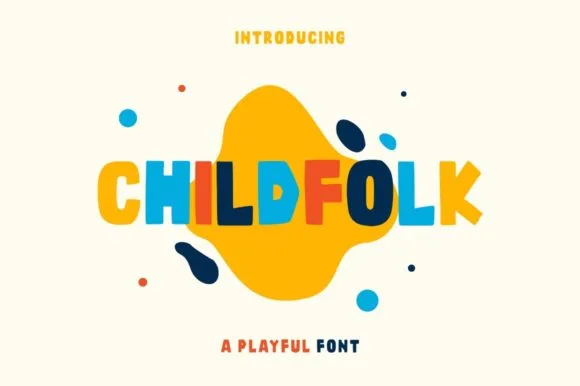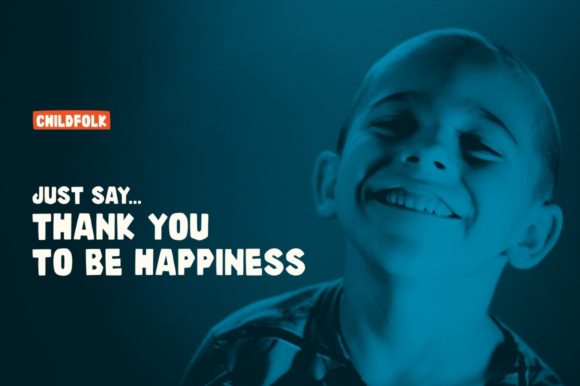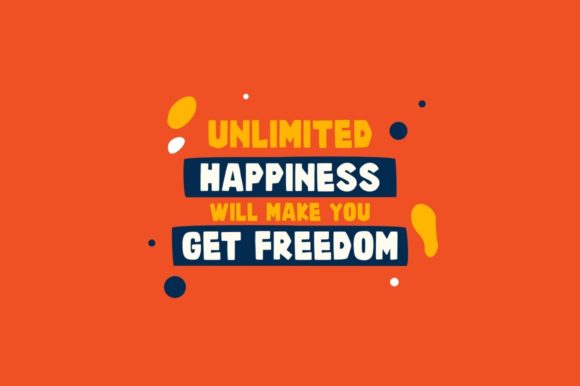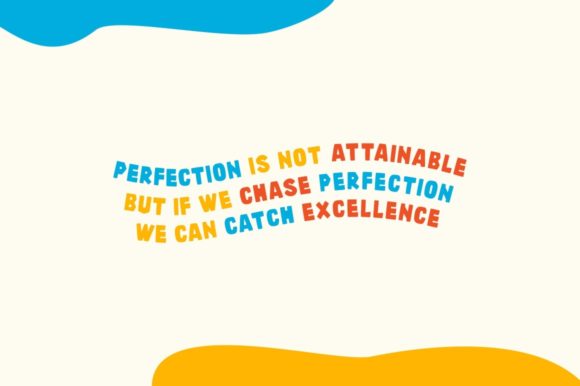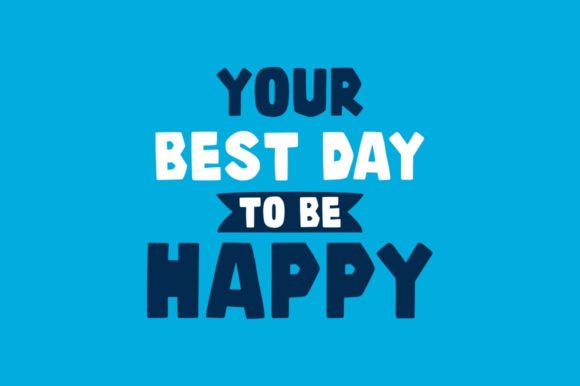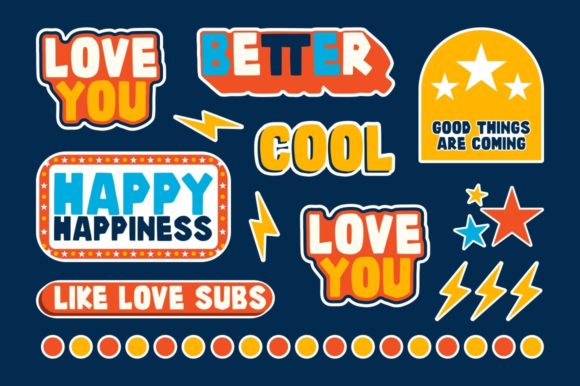
Childfolk Font
About Childfolk Font
Introducing “Childfolk,” a delightful and charming full-color font that brings a playful and childlike vibe to your designs. With its whimsical and vibrant lettering, this font is perfect for adding a touch of joy and creativity to any kids and school projects.
“Childfolk” captures the essence of childhood with its playful and lighthearted design. The colorful letters evoke a sense of fun and imagination, making it an ideal choice for educational materials, children’s books, school posters, crafts, and any project that targets a young audience.
With its childlike playfulness, “Childfolk” allows you to unleash your creativity and infuse your designs with a sense of wonder and excitement. Whether you’re designing birthday invitations, classroom materials, nursery decorations, or any other project that celebrates the world of children, this font will bring a smile to everyone’s face.
Let your imagination soar with “Childfolk.” Use it to create captivating and cheerful designs that engage and delight young audiences. Whether you’re designing educational materials, party decorations, or anything in between, this font will infuse your projects with a sense of childlike wonder.
So, embrace the adorable charm of “Childfolk” and let its playful colors and delightful lettering brighten up your kids and school projects. With its cheerful and whimsical design, this font will captivate hearts and spark the imagination of both children and adults alike.